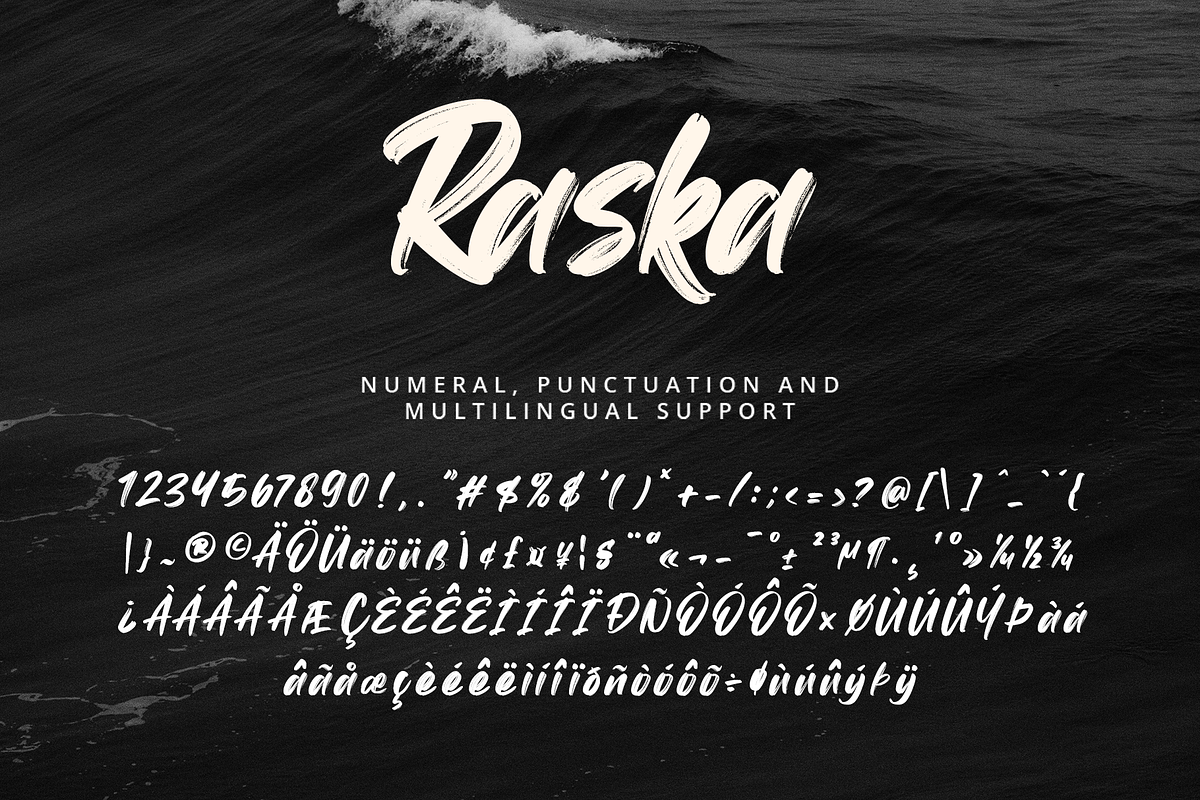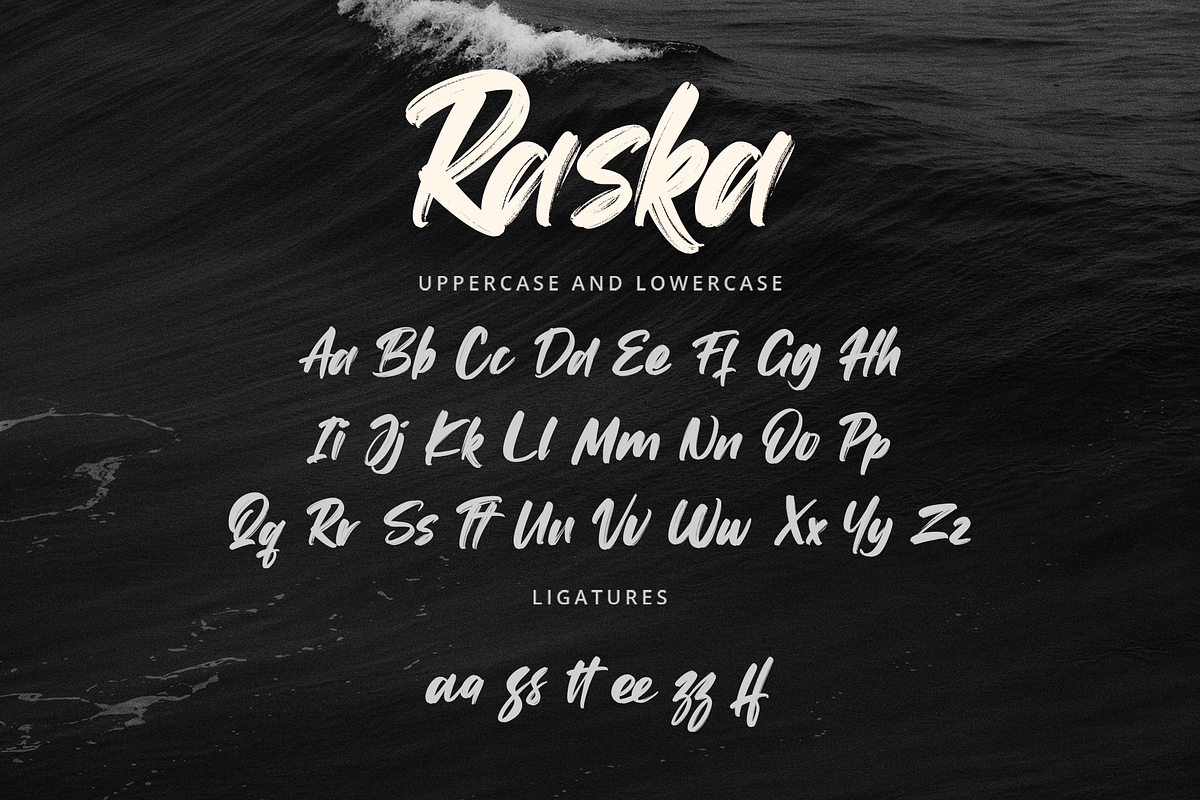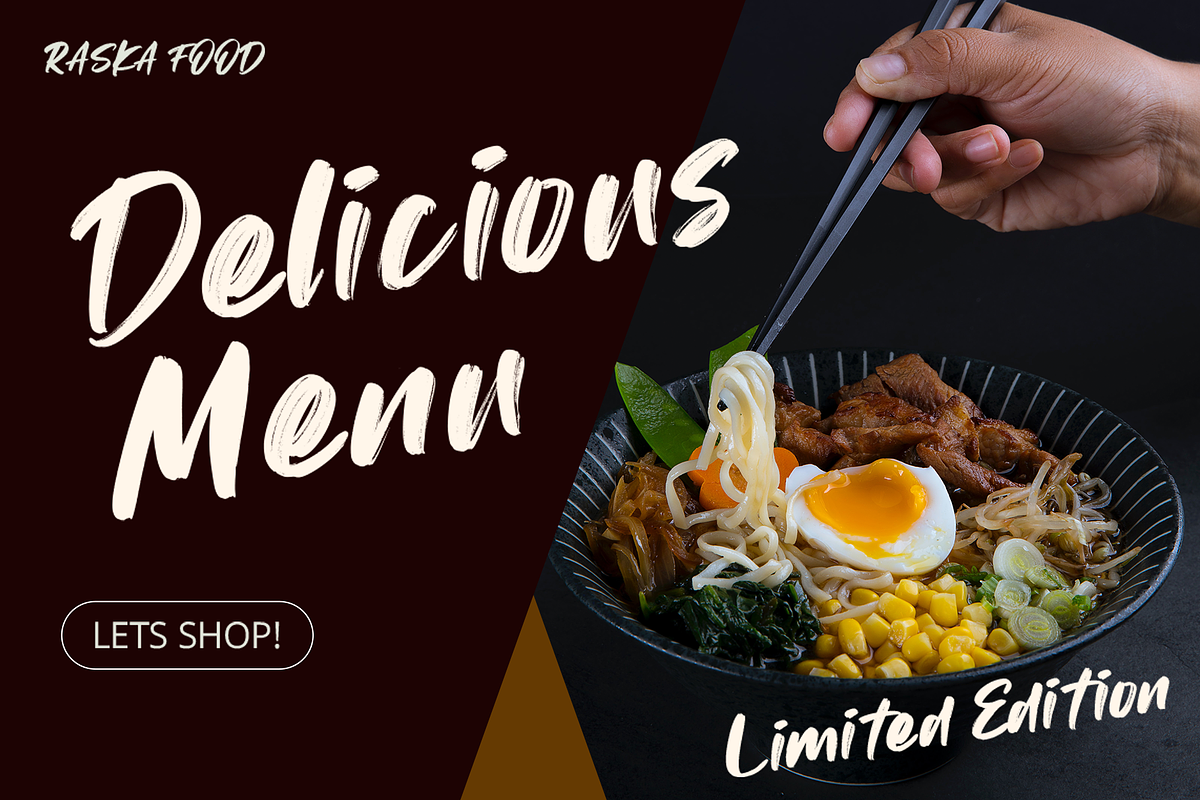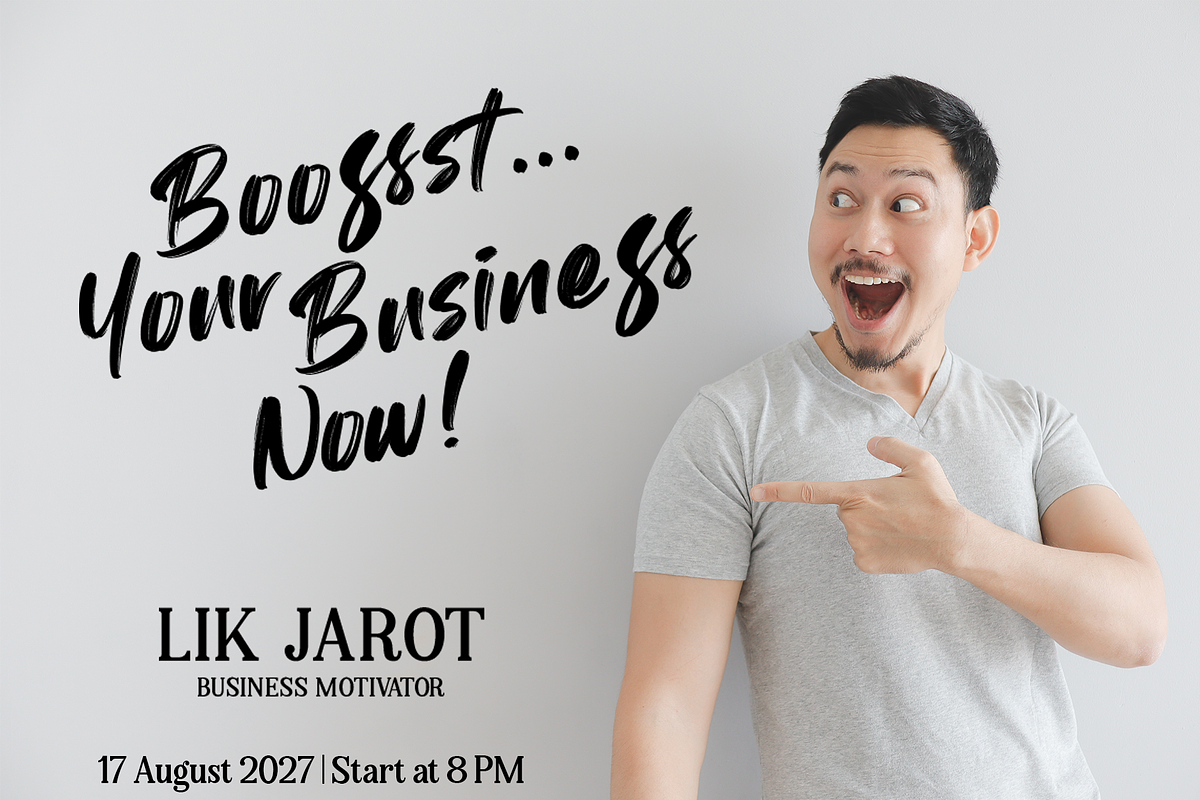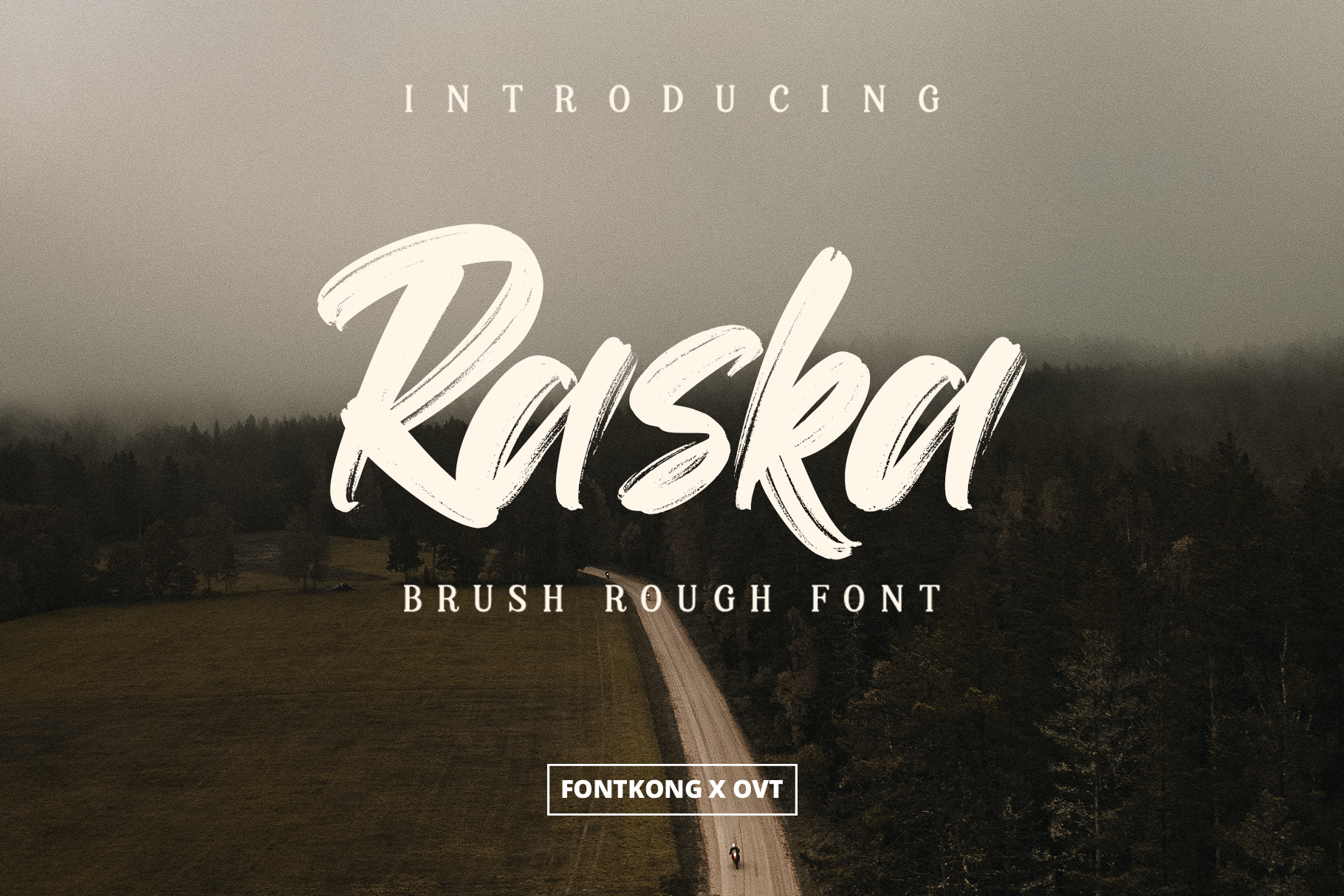
Raska - Brush Rough Font
Infuse your designs with the raw, untamed energy of "Raska," a brush rough font that embodies the wild spirit of hand-drawn artistry. Perfect for projects that demand a rugged and authentic feel, "Raska" is ideal for posters, branding, album covers, apparel, and more.
"Raska" features bold and dynamic brush strokes, creating characters that are both powerful and expressive. Each letter showcases a unique texture and edge, giving your designs a hand-crafted, organic look that stands out.
This font includes a full set of uppercase and lowercase letters, numerals, and punctuation, offering the versatility you need for various design applications. Whether you're crafting a bold logo, an eye-catching poster, or any creative project that requires a touch of grit and personality, "Raska" delivers with style.
"Raska" is your go-to font for adding a burst of rough, artistic flair to your work.